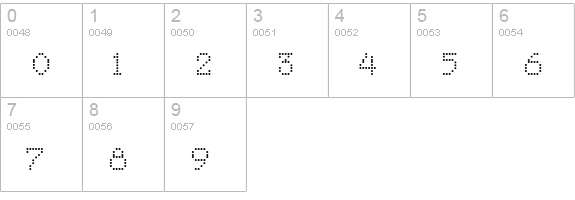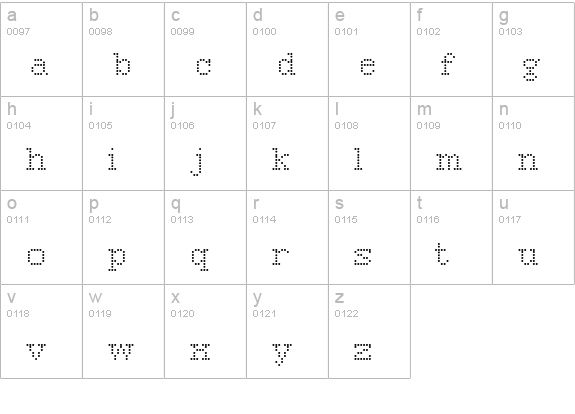
Vactic Font Details
Vactic font is a modern and stylish typeface that exudes elegance and sophistication. With its sleek lines and distinctive curves, Vactic font is perfect for adding a touch of class to any design project. Whether you're creating a logo, poster, or website, this font will make your text stand out and leave a lasting impression. Best of all, Vactic font is available for free download at FontsMarket.com. This means you can easily access this beautiful font and use it in your projects without any cost. Don't miss out on the opportunity to enhance your designs with the timeless beauty of Vactic font - download it today and elevate your creative work to the next level.